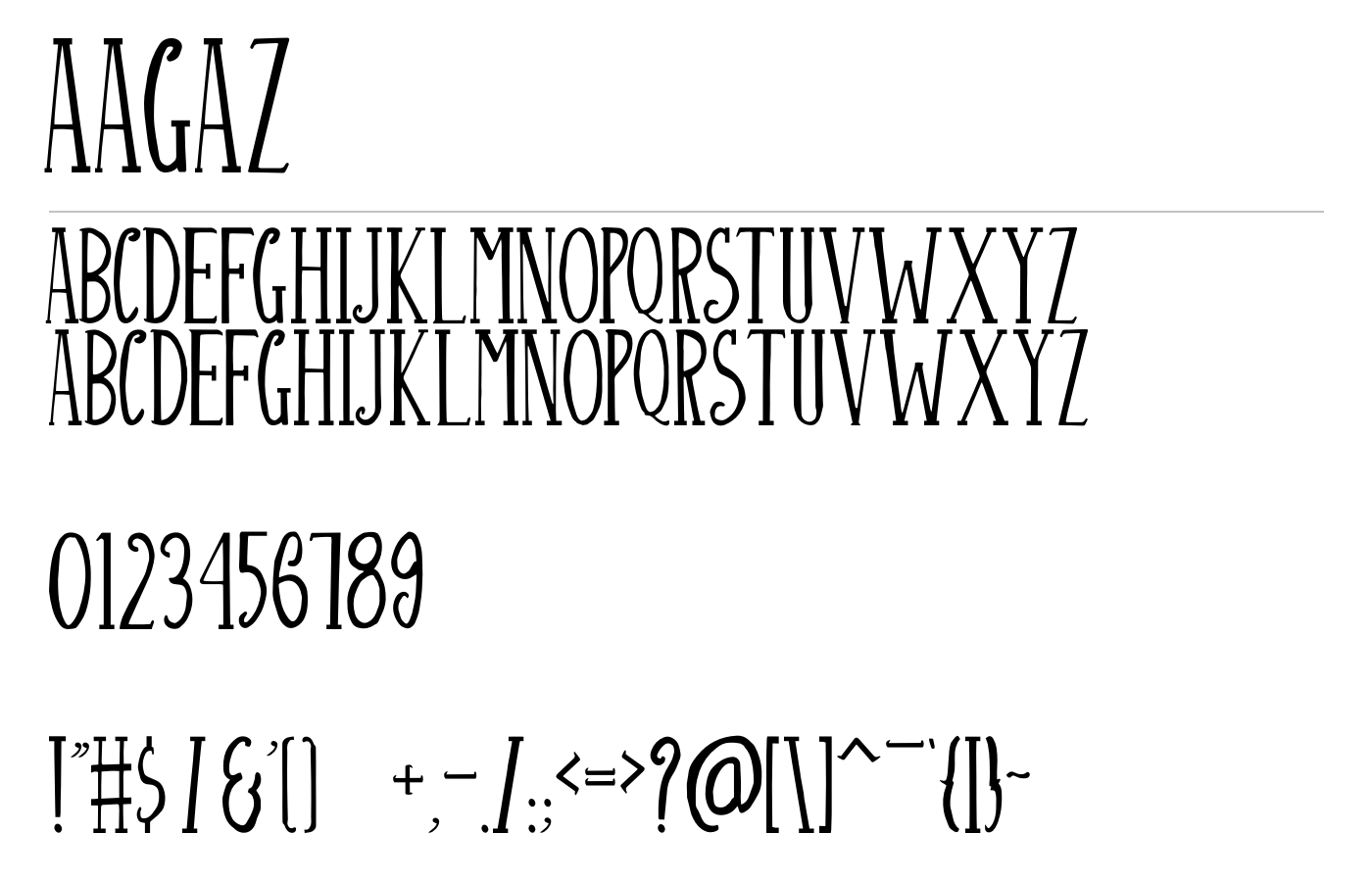
Aagaz is a tall, narrow serif font with a quirky, hand-drawn feel that adds personality and charm. Its thin strokes and subtle variations give it a playful yet elegant look, making it ideal for creative headlines, posters, and branding where a distinctive, artistic touch is desired. This font works well in designs seeking a blend of vintage character and modern expressiveness.
Aagaz Font
About Aagaz Font
| Font family | Aagaz Font |
| Designer | Ahsan |